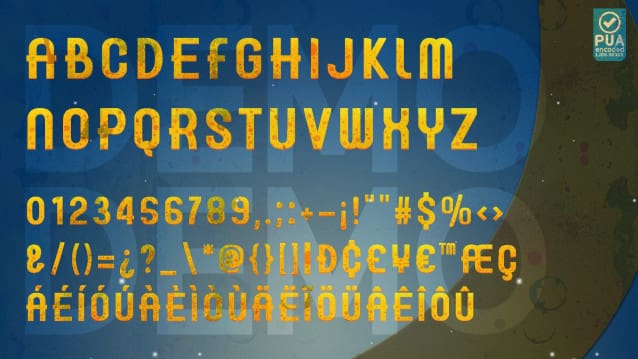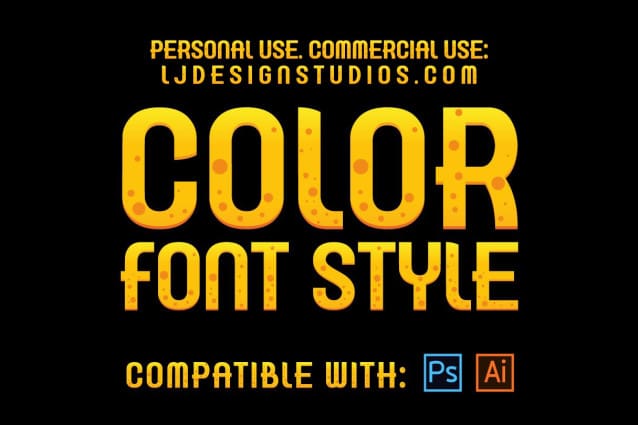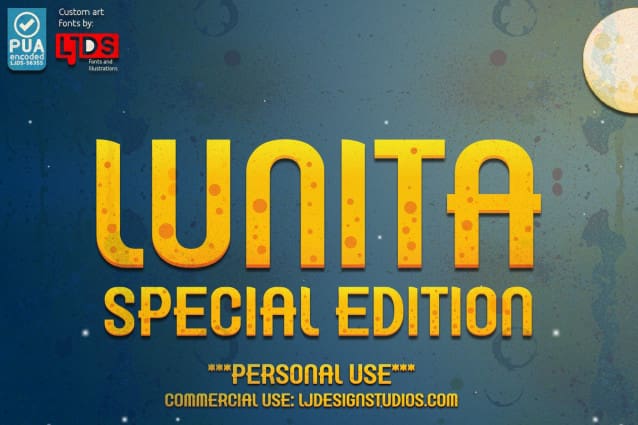
Lunita Special Edition Font
Lunita Special Edition font is a variable of the already existing LUNITA FONT, this theme has the ability to display its color and texture incorporated into Adobe Suite programs.